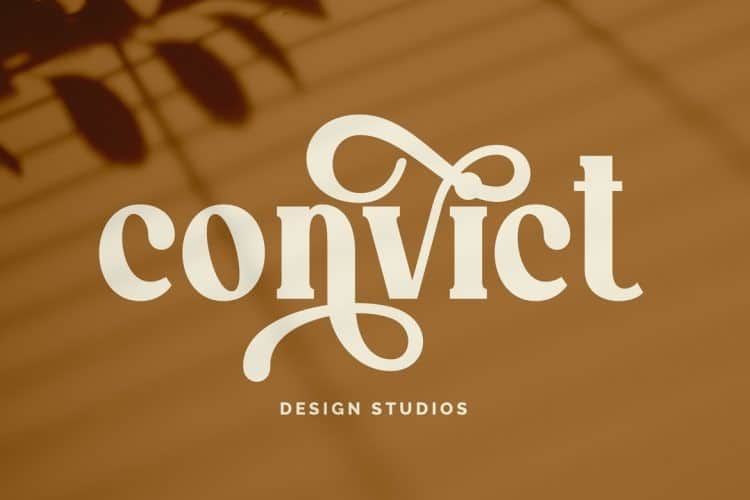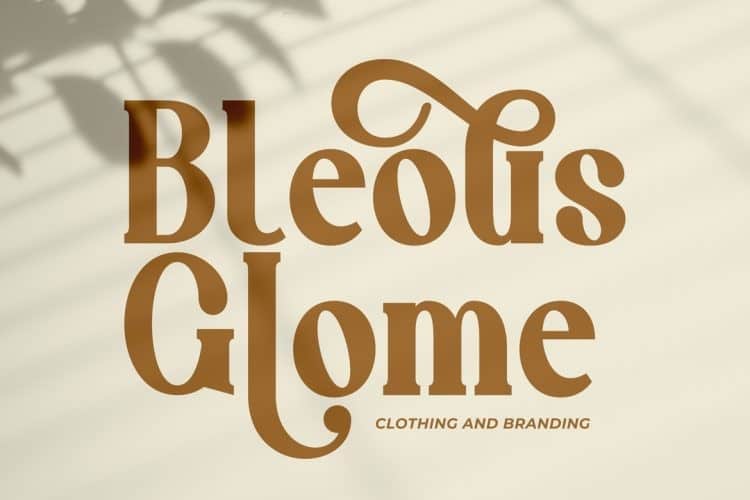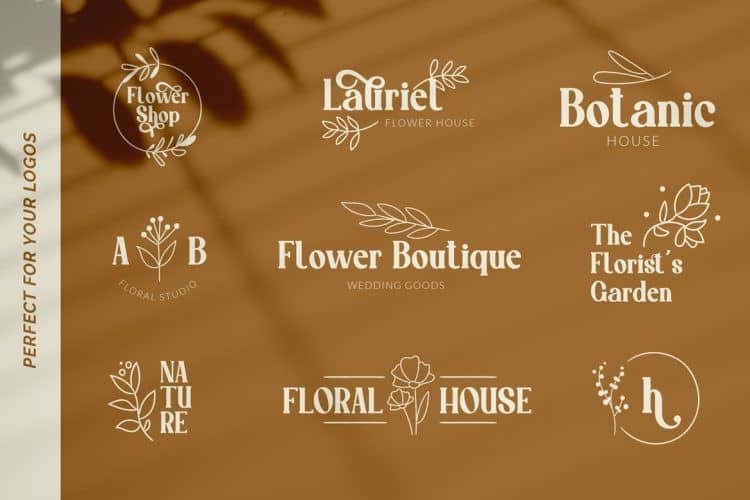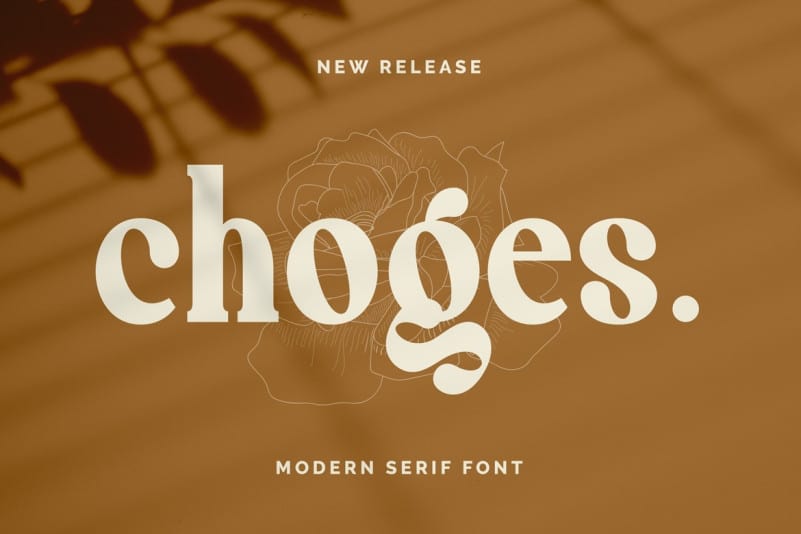
Choges Serif Font
This Typeface is a lovely elegant font for branding and logo design. Choges is designed and shared by FallenGraphic Studio. This typeface is a modern and bold serif with a bunch of ligatures and alternates that will make your presentation or logo even more stunning and stand out! Choges also support Multi Language. and already PUA Encoded!